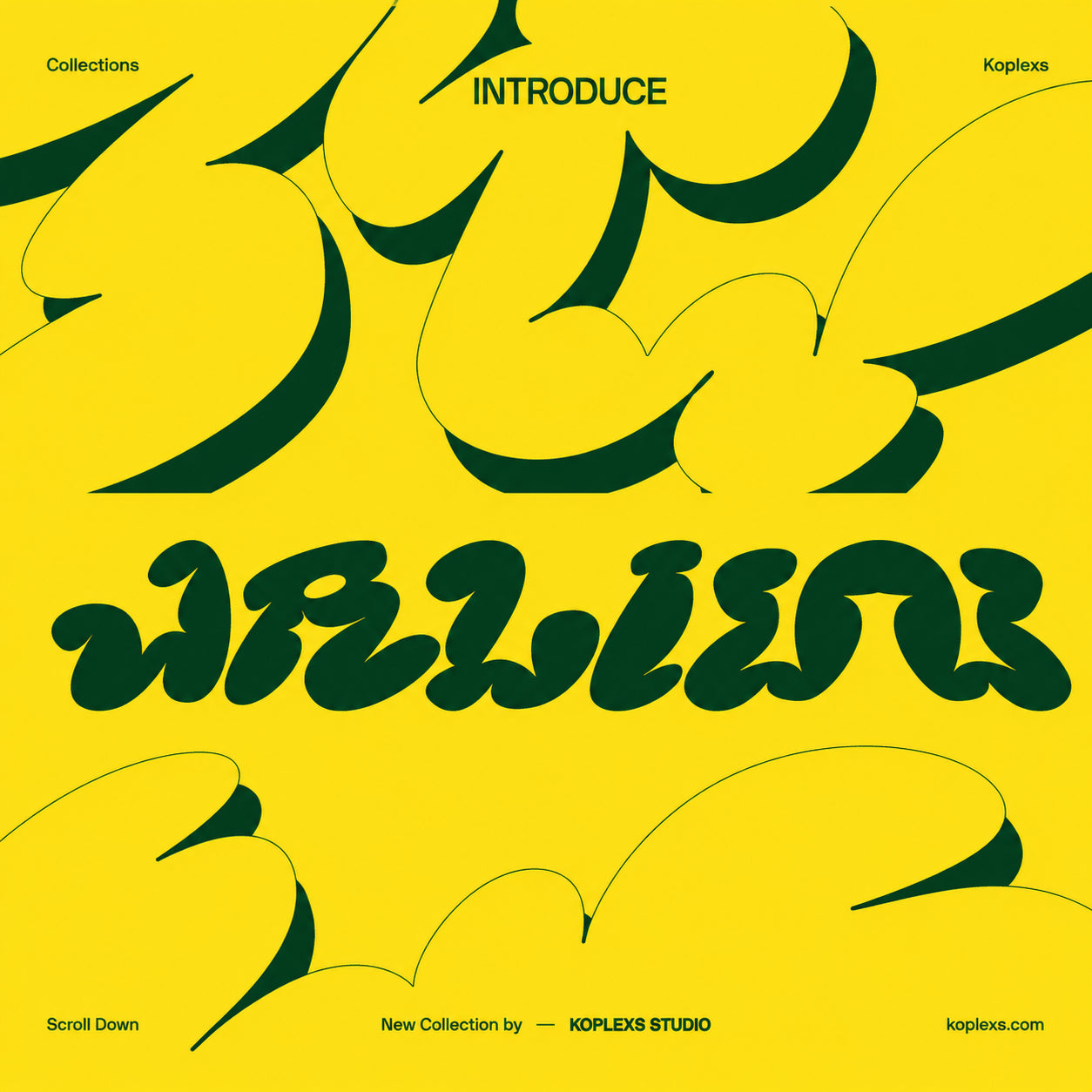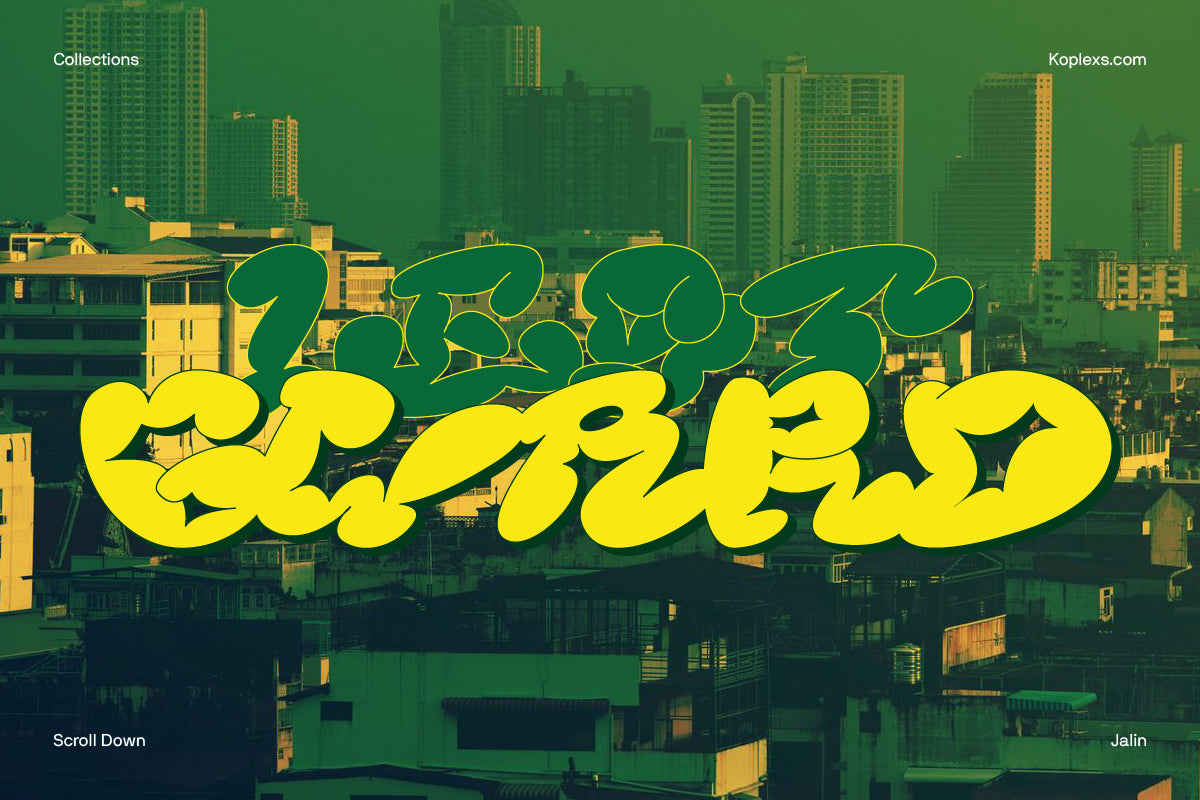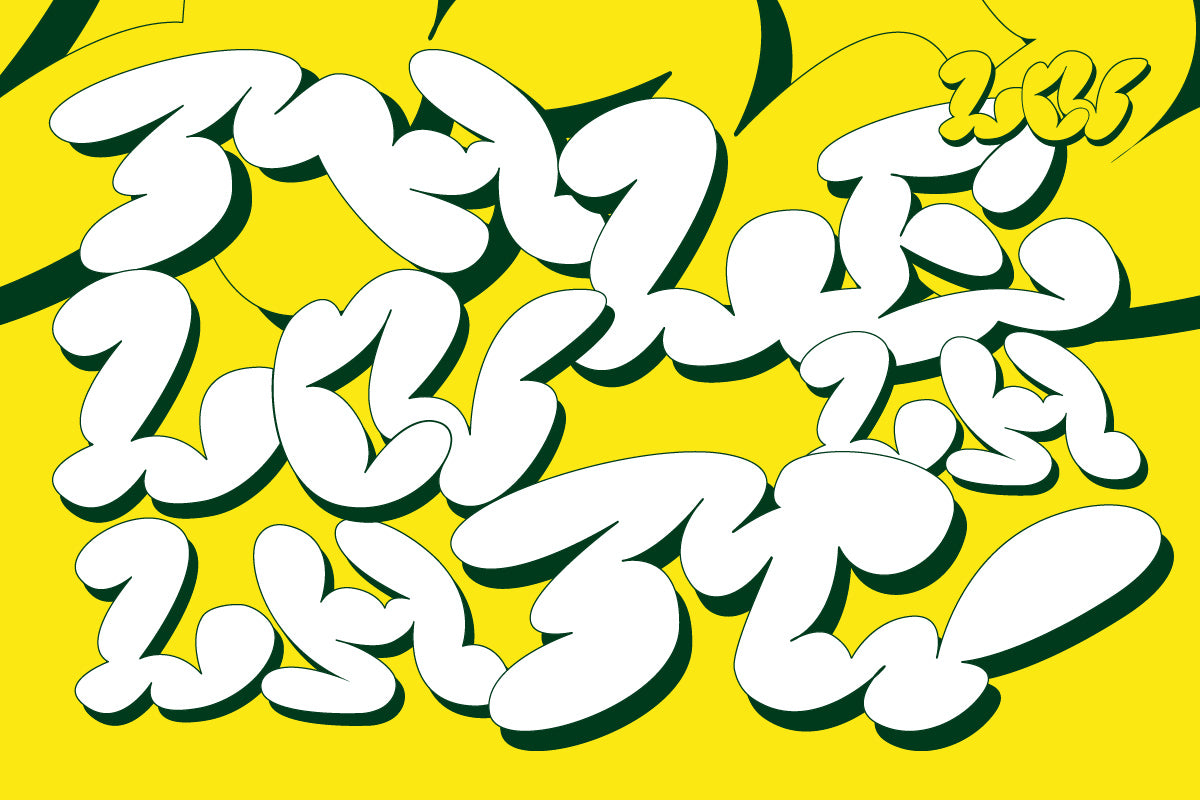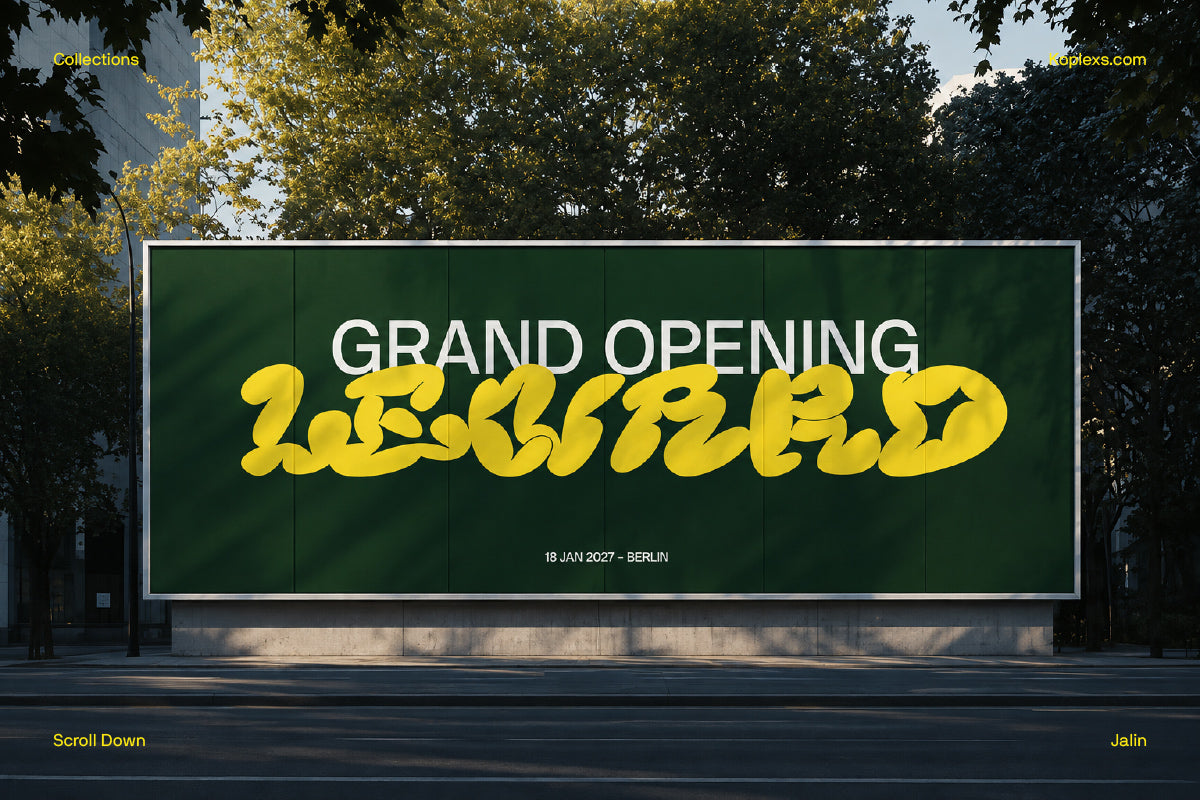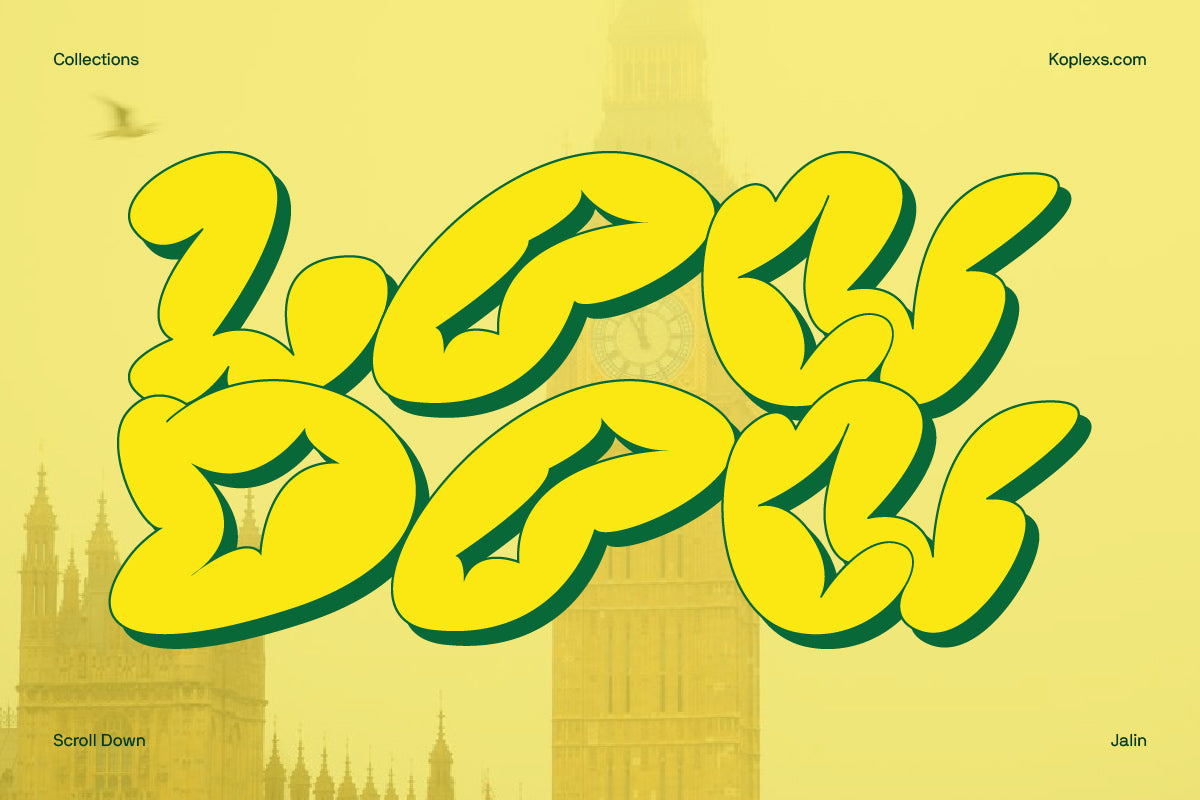
Jaliw Font | Groovy Bubble Display Typeface
Jaliw Font is a bold and playful bubble display font packed with chunky curves, groovy shapes, and an expressive retro attitude. Its unconventional letterforms bring instant character to any design, making it perfect for creatives who want typography that feels loud, fun, and far from ordinary.
Built for high-impact visuals, Jaliw works great for posters, album covers, music graphics, streetwear, merch, logos, packaging, editorial headlines, social media, and bold branding. Creative ligatures and alternate characters let you experiment with different combinations and build custom-looking typography with ease.
Perfect for :
Posters and gig graphics
Album covers and music artwork
Streetwear and merchandise
Logos and visual identities
Packaging and labels
Editorial and headlines
Social media graphics
Jaliw Font is a bold bubble display typeface featuring chunky curves and groovy shapes, designed for high-impact visuals. It includes creative ligatures and alternate characters, allowing for customizable typography suitable for various design projects.